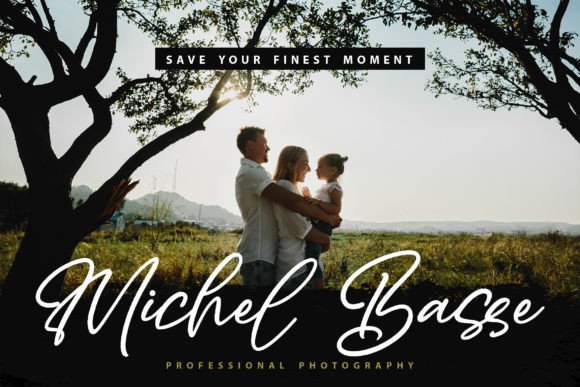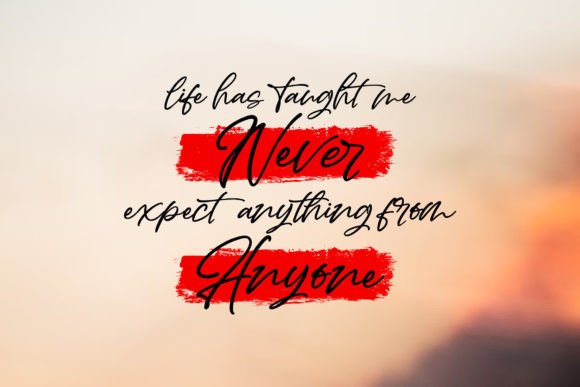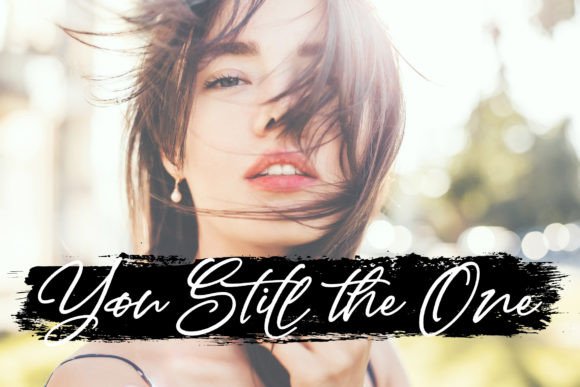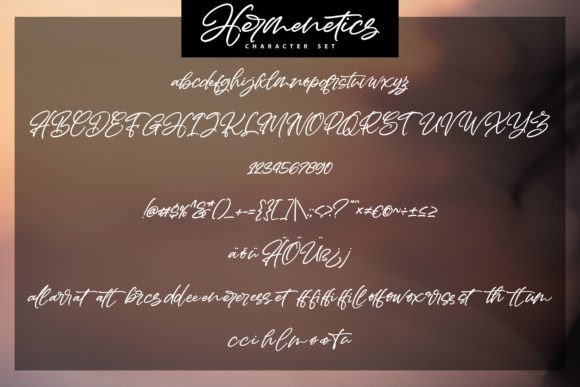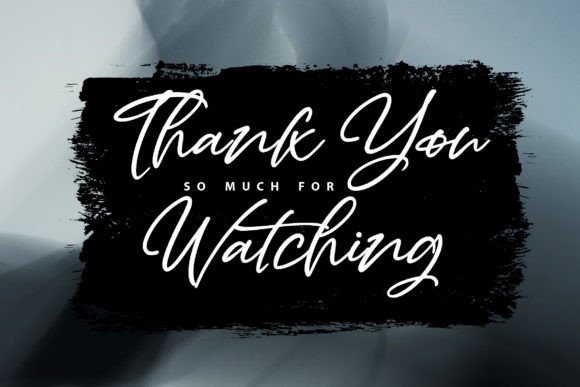
Hermenetics Font
Introducing Hermenetics, a beautiful and light handwritten font with a unique feel and a stunning impact. This font is designed to add a luxurious spark to any design project you wish to create.
The light and handwritten style of Hermenetics contribute to its beauty, making it a versatile choice for a variety of design applications. Whether you’re working on invitations, branding materials, social media graphics, or any project that demands a touch of luxury, Hermenetics is crafted to make a stunning impact.
Consider using Hermenetics to bring a light and beautiful look to your invitations, adding a touch of luxury to your branding materials, or creating visually stunning social media graphics. The unique feel of Hermenetics ensures that your text stands out with elegance and impact.
In essence, Hermenetics is more than just a font; it’s a design tool that adds a luxurious spark to your projects. Let it be the handwritten font that enhances your designs, making them beautiful and impactful with a touch of luxury.